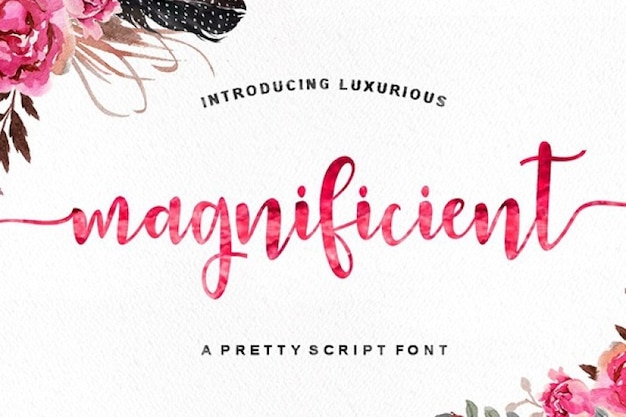
Magnificient Script Font
Youngtype
Bold and pretty, the Magnificient Script font was made to give a unique handwritten style to your creations. This font is perfect for taking your projects to the next level, especially suitable for signatures, titles and business cards. Download it now and start designing!